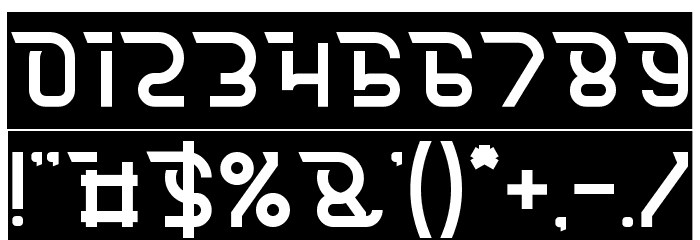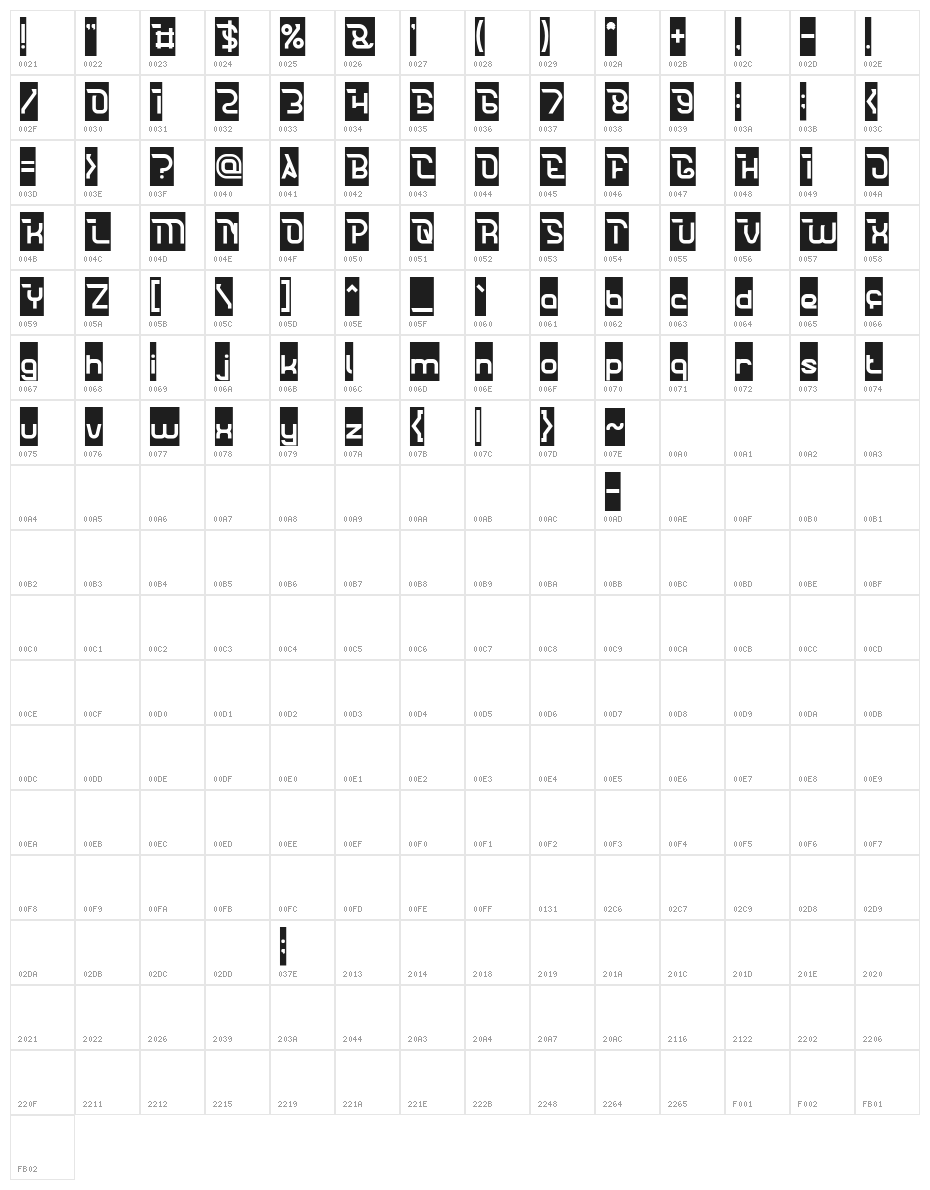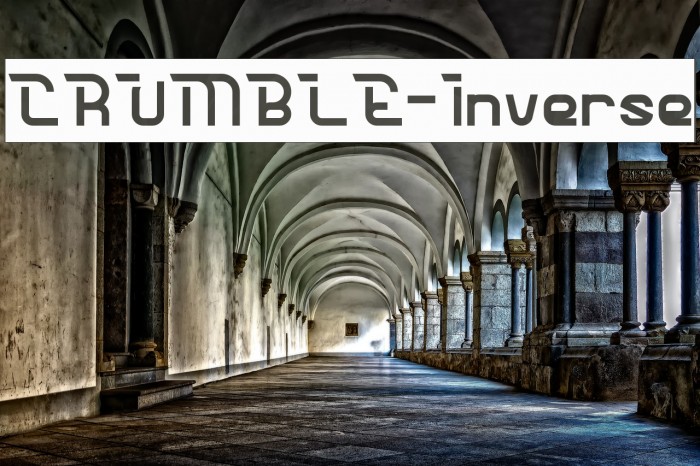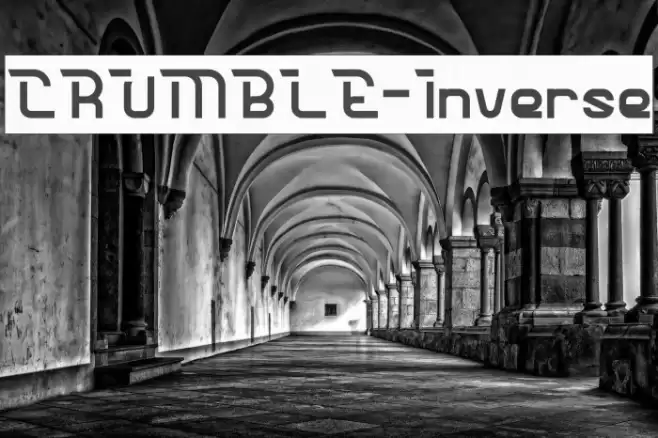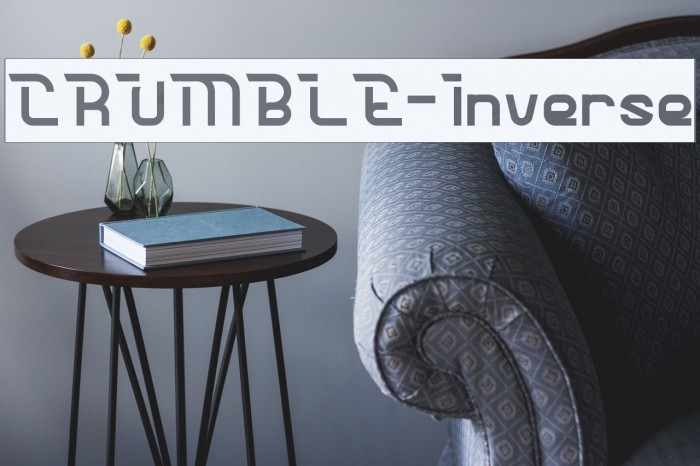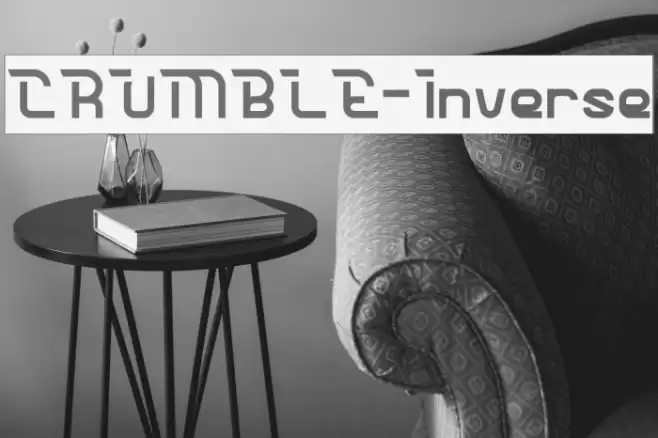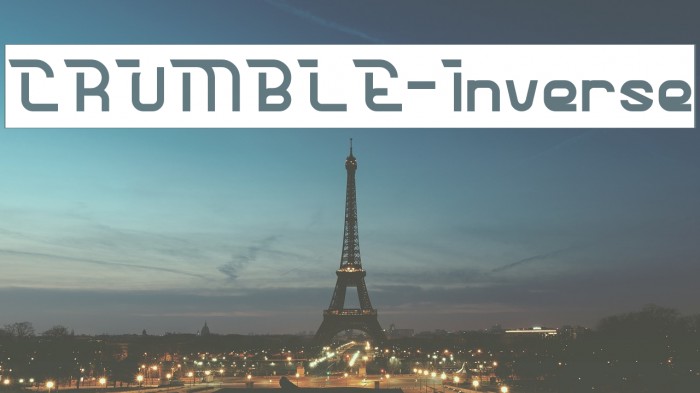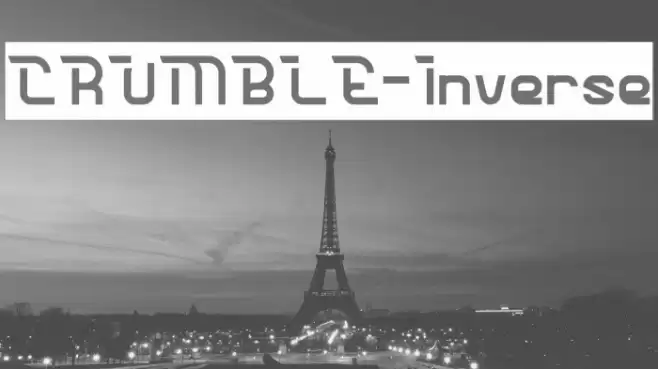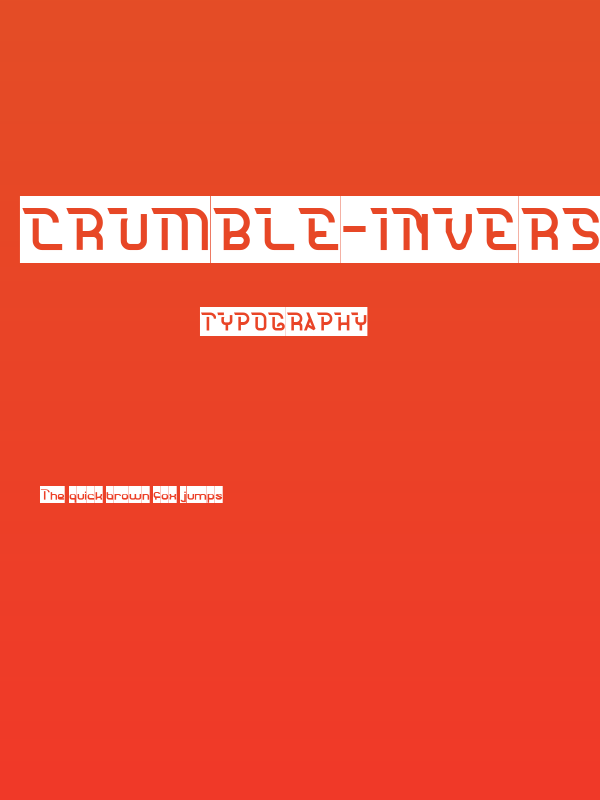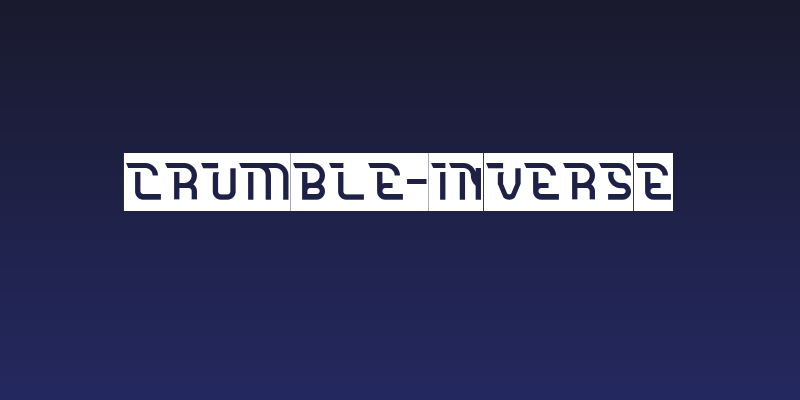
CRUMBLE-Inverse Font
CRUMBLE-Inverse Description
This font features a bold and modern design with a unique inverse style, where the negative space plays a significant role in defining the characters. The uppercase and lowercase letters share a consistent geometric structure, with rounded edges and a futuristic aesthetic. The numerals and special characters maintain the same stylistic approach, ensuring uniformity across all glyphs. The font's distinct appearance makes it ideal for eye-catching designs, offering a contemporary and innovative look.